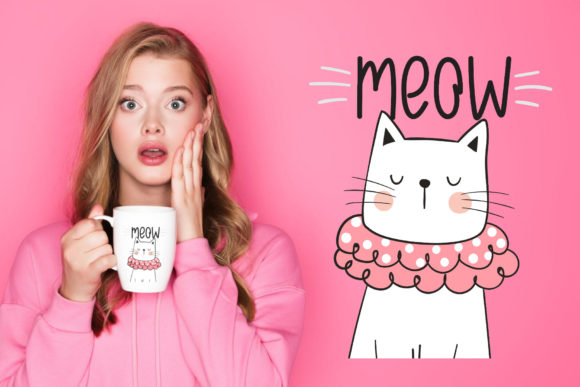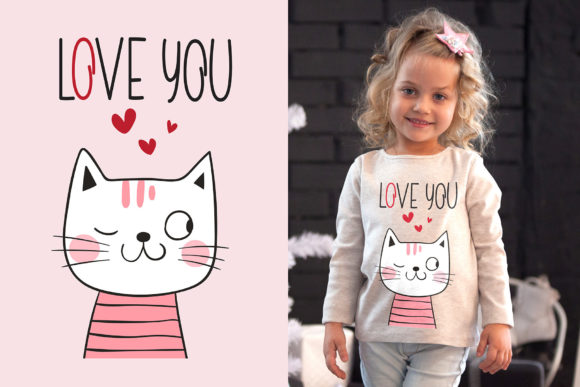
Unleash Your Creativity with Cool Cat Font
Remember the excitement of brainstorming a new project, surrounded by scribbled notes, colorful pens, and a blank canvas waiting to be filled? That spark of creativity is what drives us to bring our ideas to life, and for designers, the right font can be the missing piece that sets their vision apart. In the world of typography, one font stands out for its fun and comfortable vibe – the Cool Cat Font.
This versatile sans serif font is designed to make your content shine, whether it’s a blog post, a logo, or an invitation. With its easy-to-read design, Cool Cat Font is perfect for a wide range of projects, from branding and ads to photo albums and decorations. As a designer, you’ll appreciate the flexibility and value it brings to your work.
Cool Cat Font Key Features
- Font Family: Cool Cat is a sans-serif font family.
- Unique Characteristics: Features a unique, modern design with rounded edges and a friendly feel.
Cool Cat Font Review
Overall, I think the Cool Cat Font is a fun and playful addition to any design project. ✨ Its unique blend of retro and modern elements makes it a great choice for anything from food truck branding to kids’ entertainment websites. ✨ The font is highly customizable, allowing you to tweak the size, color, and even add effects to make it really pop.
Here are some specific things that I think work well:
- Expressive and whimsical feel – The Cool Cat Font is all about capturing a carefree, fun vibe, and it does it really well.
- Customization options – As I mentioned, the font is highly customizable, which makes it a great choice for designers who like to have control over every detail.
- Wide range of applications – Whether you’re designing a logo, a website, or even a t-shirt, the Cool Cat Font is a great choice.
- May not be suitable for formal or professional projects ⚠️ – The Cool Cat Font is a bit too playful for formal or professional designs, so use it wisely.
- Not as versatile as some other fonts ⚠️ – While the Cool Cat Font is great for certain projects, it may not be the best choice for every design.
Overall, I think the Cool Cat Font is a fun and useful addition to any designer’s toolkit. With its unique blend of retro and modern elements, customization options, and wide range of applications, it’s a great choice for designers who want to add a little personality to their projects.
Tips for Getting the Most Out of Cool Cat Font
Use Cool Cat Font for creative and playful designs, such as:
- Food and drink labels
- Children’s products
- Party invitations
- Quirky advertising
Remember to use Cool Cat Font in moderation to avoid overwhelming your design.